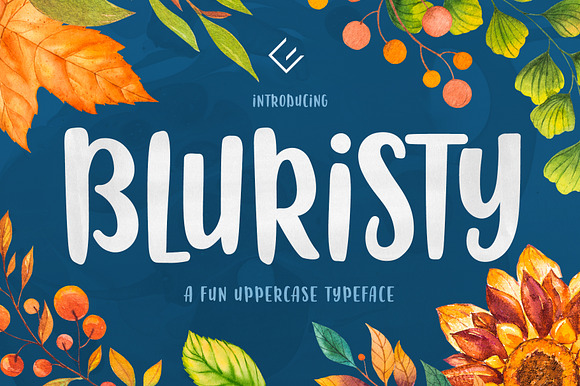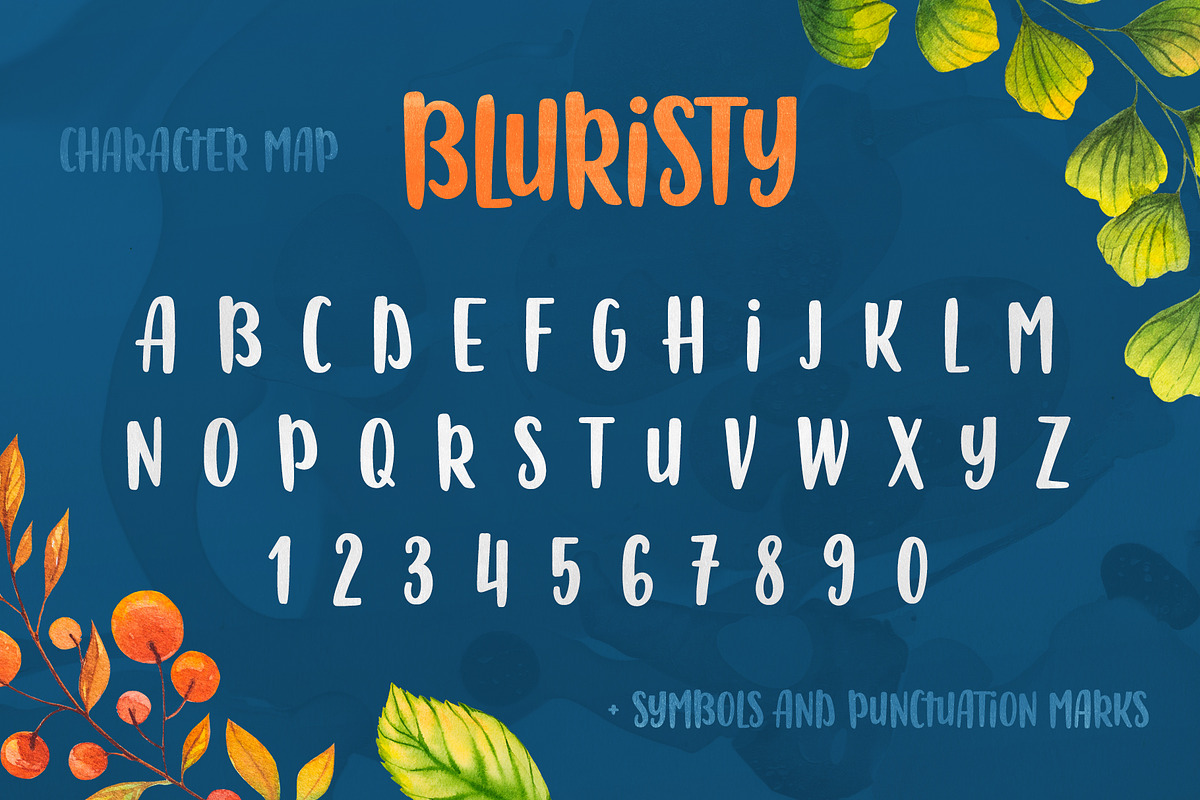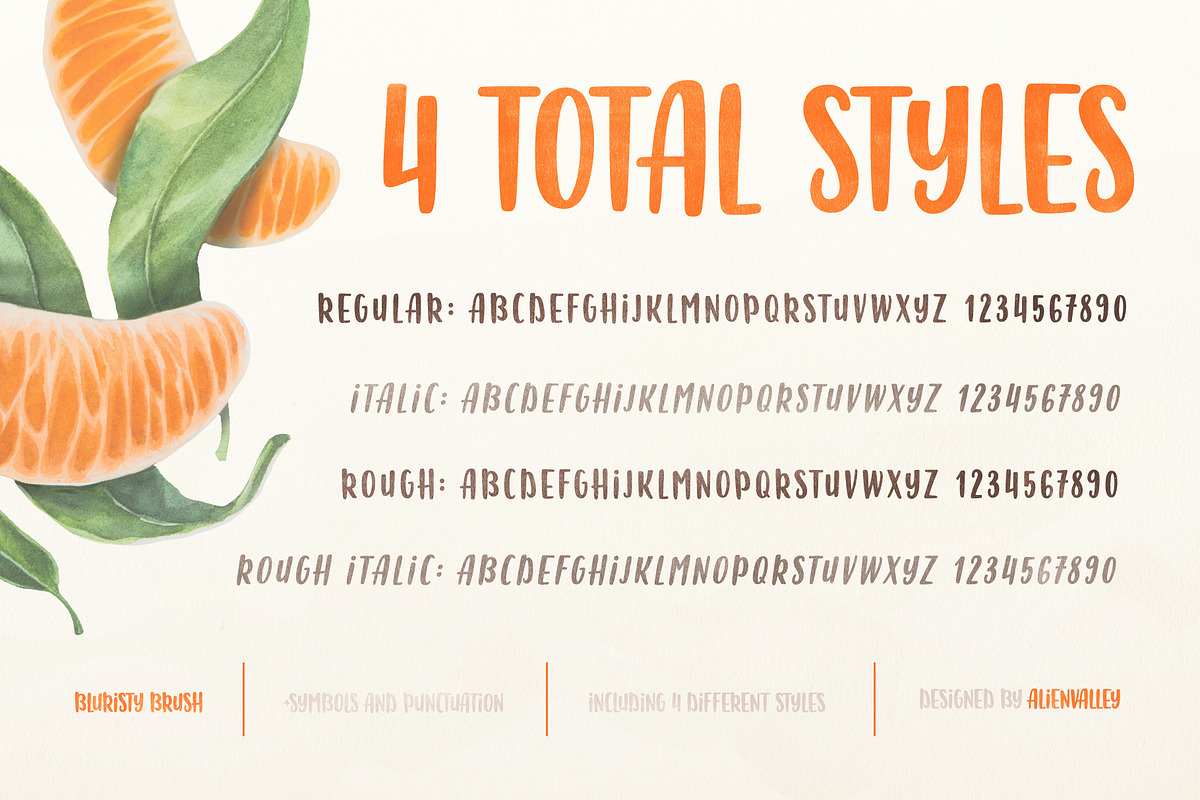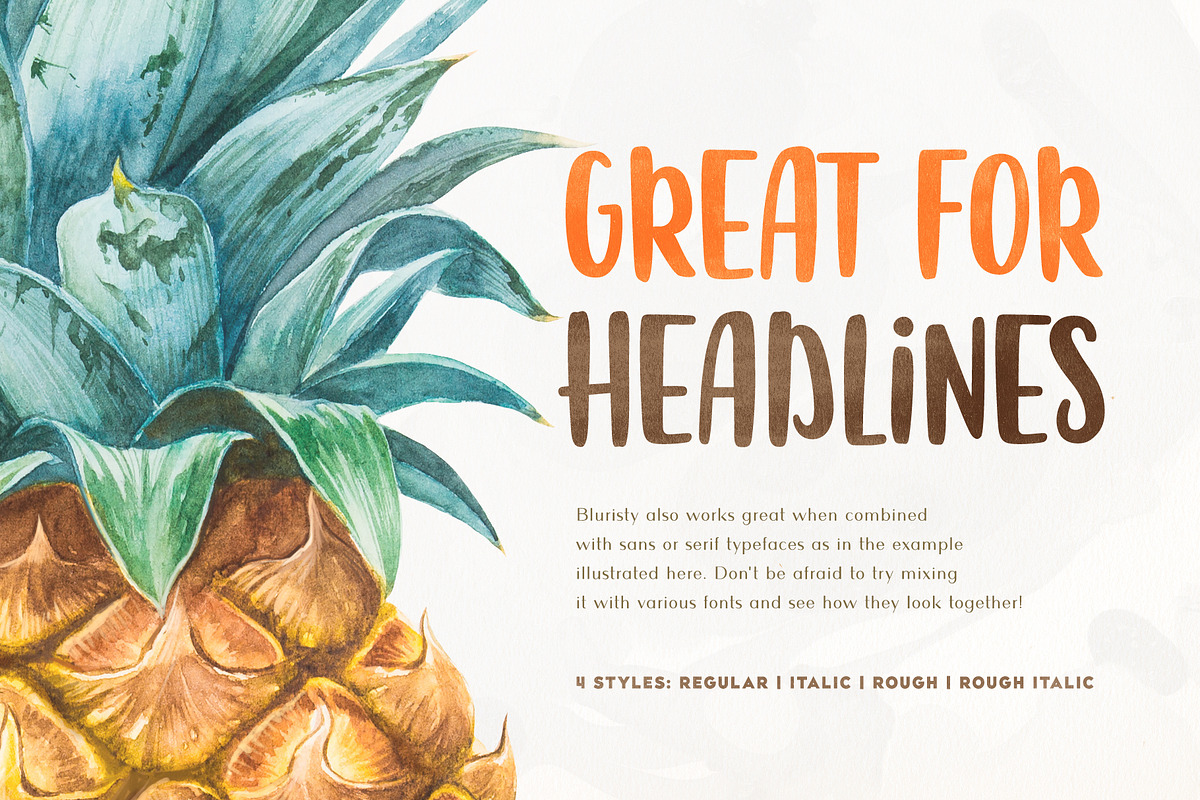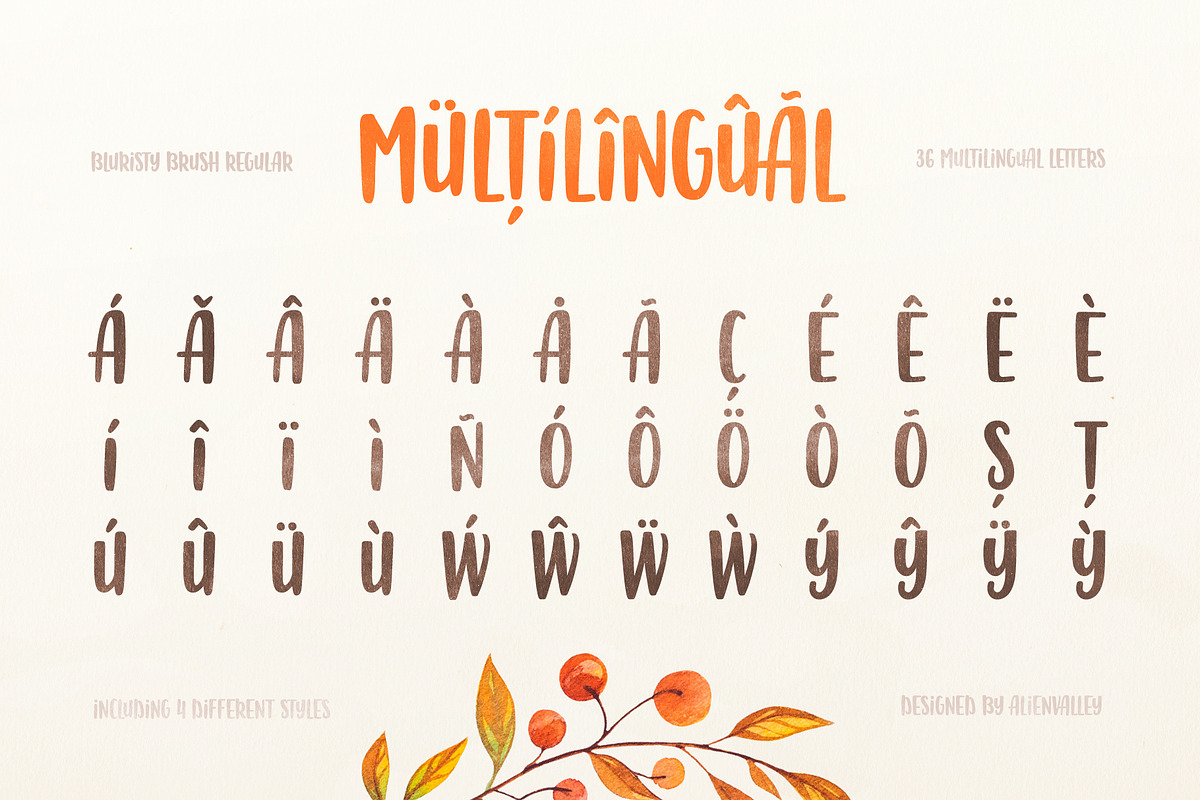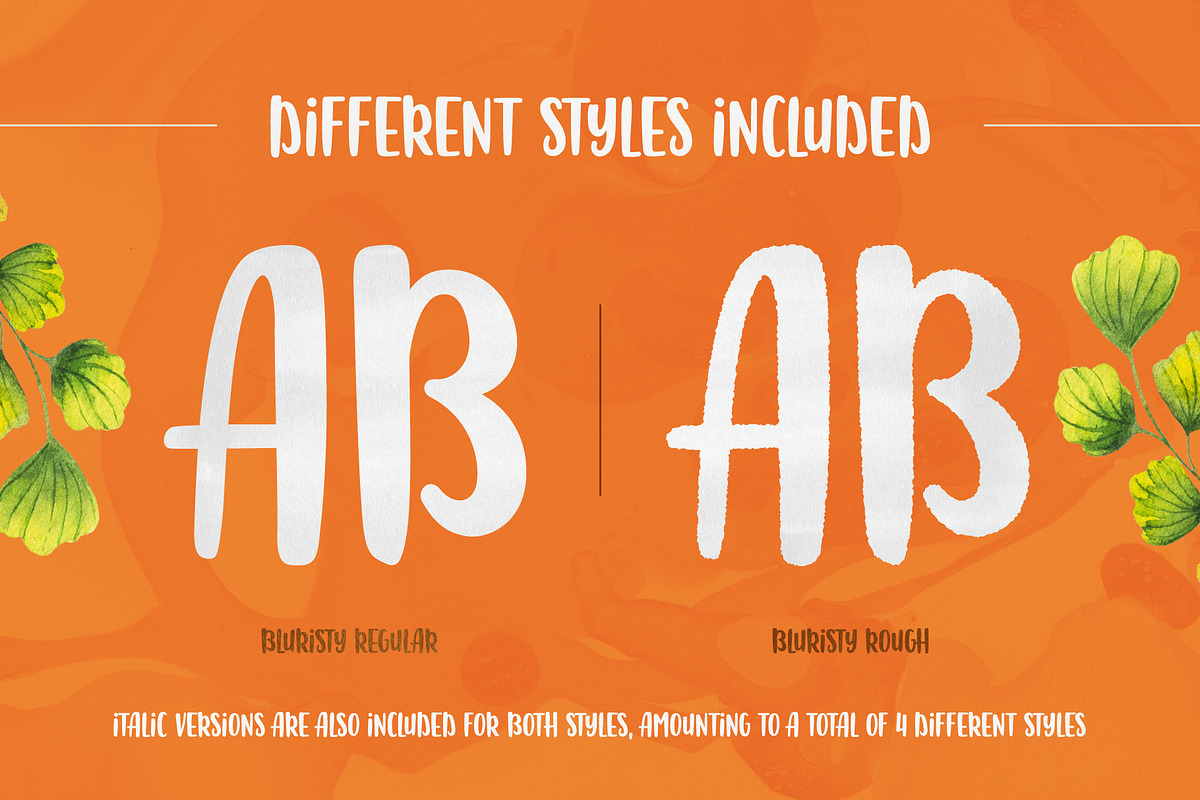
Bluristy - Fun Brush Font
Bluristy is a fun all caps brush font featuring 4 styles plus multilingual support. It was mainly designed for headlines so it you can use it to drive attention to your quirky designs.
Quirky Uppercase Letters
4 Styles (Regular, Italic, Rough, Rough Italic)